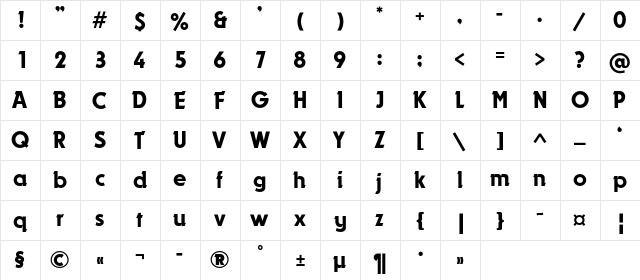
DynarC Regular
Design Context for DynarC Typeface
DynarC takes a measured approach to typography — its balanced proportions and neutral character make it a reliable workhorse for both digital and print work.
Pro Tip: Pair DynarC with a font of contrasting weight or personality to build a more expressive typographic hierarchy.